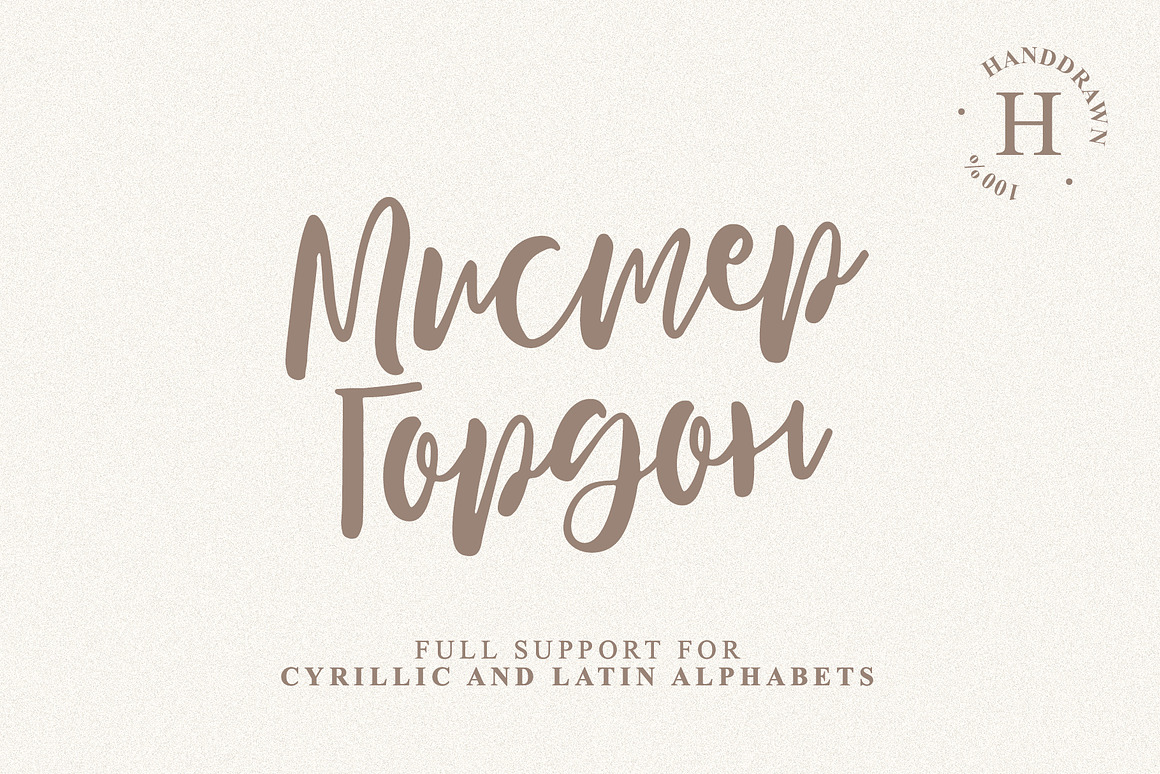
MISTER GORDON Font
MISTER GORDON Font is perfect for vintage branding, retro advertising campaigns, classic barbershops, traditional menswear, old-school restaurants, nostalgic packaging, heritage brands, vintage automotive graphics, antique shop signage, and classic editorial designs.
What makes MISTER GORDON Font exciting is its authentic vintage charm that captures the golden era of classic American typography and traditional craftsmanship. This distinctive typeface combines old-world character with timeless appeal, creating letterforms that evoke nostalgia, reliability, and genuine heritage. The font's robust personality and vintage details make it perfect for brands seeking to communicate authenticity, tradition, and enduring quality that connects with audiences who appreciate classic design values.
The MISTER GORDON Font family includes Regular, Bold, Light, Medium, Condensed, Extended, Outline, and Shadow variants. Each style preserves the font's vintage character while providing comprehensive design flexibility for heritage brand identities and nostalgic creative applications across diverse media platforms.
Whether you're developing heritage brand identities, creating retro marketing materials, designing vintage packaging, or crafting nostalgic advertising campaigns, MISTER GORDON Font delivers unmatched vintage authenticity and classic appeal. Its traditional character makes it perfect for classic barbershops, vintage clothing brands, traditional restaurants, and heritage craft businesses seeking genuine retro representation.
The font's carefully preserved vintage proportions and classic details ensure authentic period representation while maintaining excellent modern readability. Each letterform has been lovingly restored to capture the essence of mid-century American typography while meeting contemporary design standards and professional presentation requirements.
This versatile typeface excels in nostalgic brand environments, offering designers the authenticity needed for comprehensive vintage brand storytelling strategies. The extensive character set includes period-appropriate alternates, classic ligatures, and traditional symbols for authentic heritage market positioning.
Embrace the power of timeless design that celebrates authentic American craftsmanship and enduring quality.